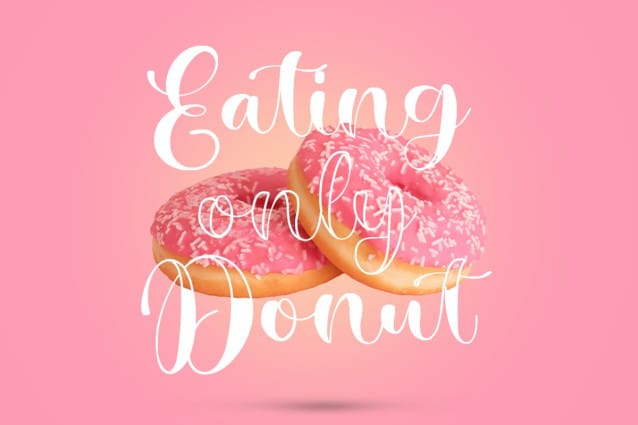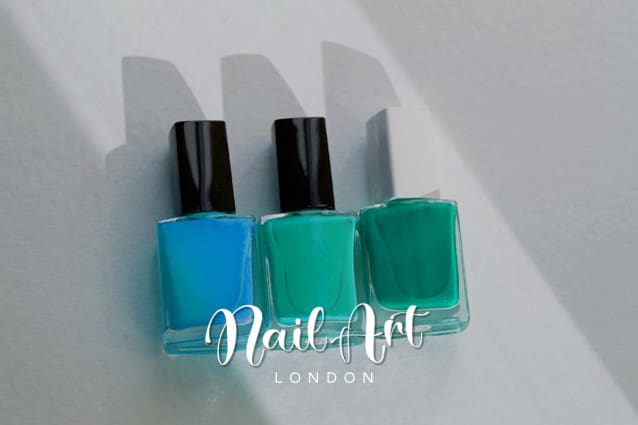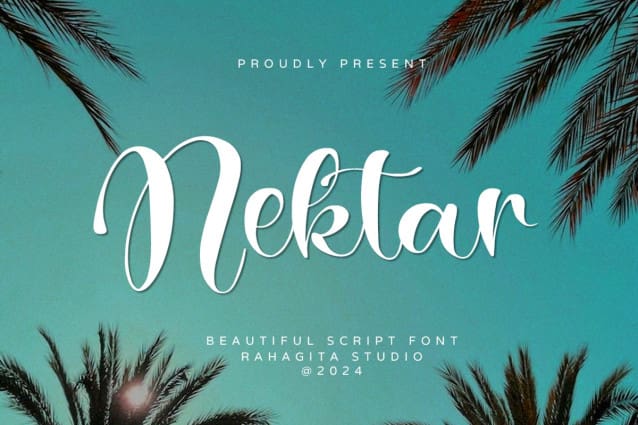
Nektar Script Font
Nektar Script Font is a unique script font with elegant semi-decorative touches. Designed to evoke an artistic and creative feel, this font is perfect for a wide range of craft projects, especially for crafting beautiful invitations. Its charming and sweet character design makes it ideal for adding luxurious touch to your invitations or creative works. Nektar Script is the perfect choice for enhancing the quality and appeal of your craft products, bringing a delicate and sophisticated flair to every project.